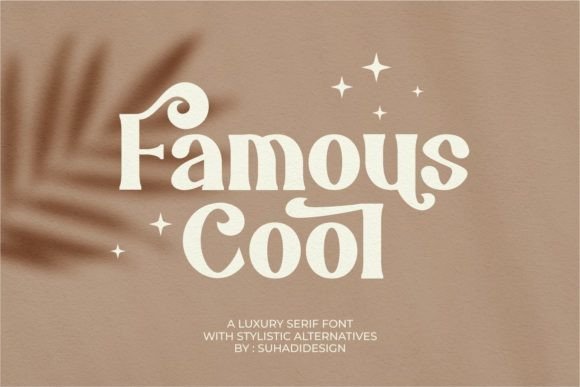
**Famous Cool: The Perfect Fusion of Sophistication and Charm for Your Tech Logos**
In the realm of tech logos, where innovation meets aesthetics, Famous Cool emerges as a beacon of sophistication and charm. This exquisite serif font, meticulously crafted by the visionary suhadidesign, is an ode to elegance, luxury, and feminine allure. With its fashionable touch, Famous Cool transcends the ordinary, propelling your designs into a realm of modern chic.
**Unleash the Power of Luxury and Elegance**
Famous Cool is not just a font; it's an experience. Each meticulously designed letter exudes luxury and elegance, evoking a sense of timeless beauty. Whether you're crafting a logo for a high-end tech company, a fashion brand, or a luxury boutique, Famous Cool will elevate your designs to new heights of sophistication.
**Immerse Yourself in Feminine Charm**
The curves and flourishes of Famous Cool embody feminine charm, adding a touch of grace and allure to your creations. This font is the perfect choice for projects that seek to capture the essence of beauty, refinement, and timeless style. Allow Famous Cool to infuse your designs with a touch of enchantment.
**Effortless Access to Glyphs and Ligatures**
Famous Cool is PUA encoded, offering you seamless access to a world of glyphs and ligatures. Unleash your creativity and explore endless possibilities, crafting designs that are as unique as your imagination. The ease of use and flexibility of this font make it a joy to work with.
**A Symphony of Modernity and Chic**
Famous Cool is the epitome of modern chic, blending classic elegance with contemporary flair. Its ability to create logos that are both timeless and cutting-edge makes it the ideal choice for tech companies seeking to stand out in a crowded marketplace. Embrace the power of Famous Cool and watch your designs transform into masterpieces of modern aesthetics.
**Elevate Your Tech Logos to New Heights**
With Famous Cool as your font of choice, your tech logos will transcend the ordinary and enter the realm of the extraordinary. Its sophisticated charm and feminine allure will captivate audiences, leaving a lasting impression that speaks volumes about your brand's identity. Experience the transformative power of Famous Cool and witness the birth of logos that are destined to leave an indelible mark on the world of tech.